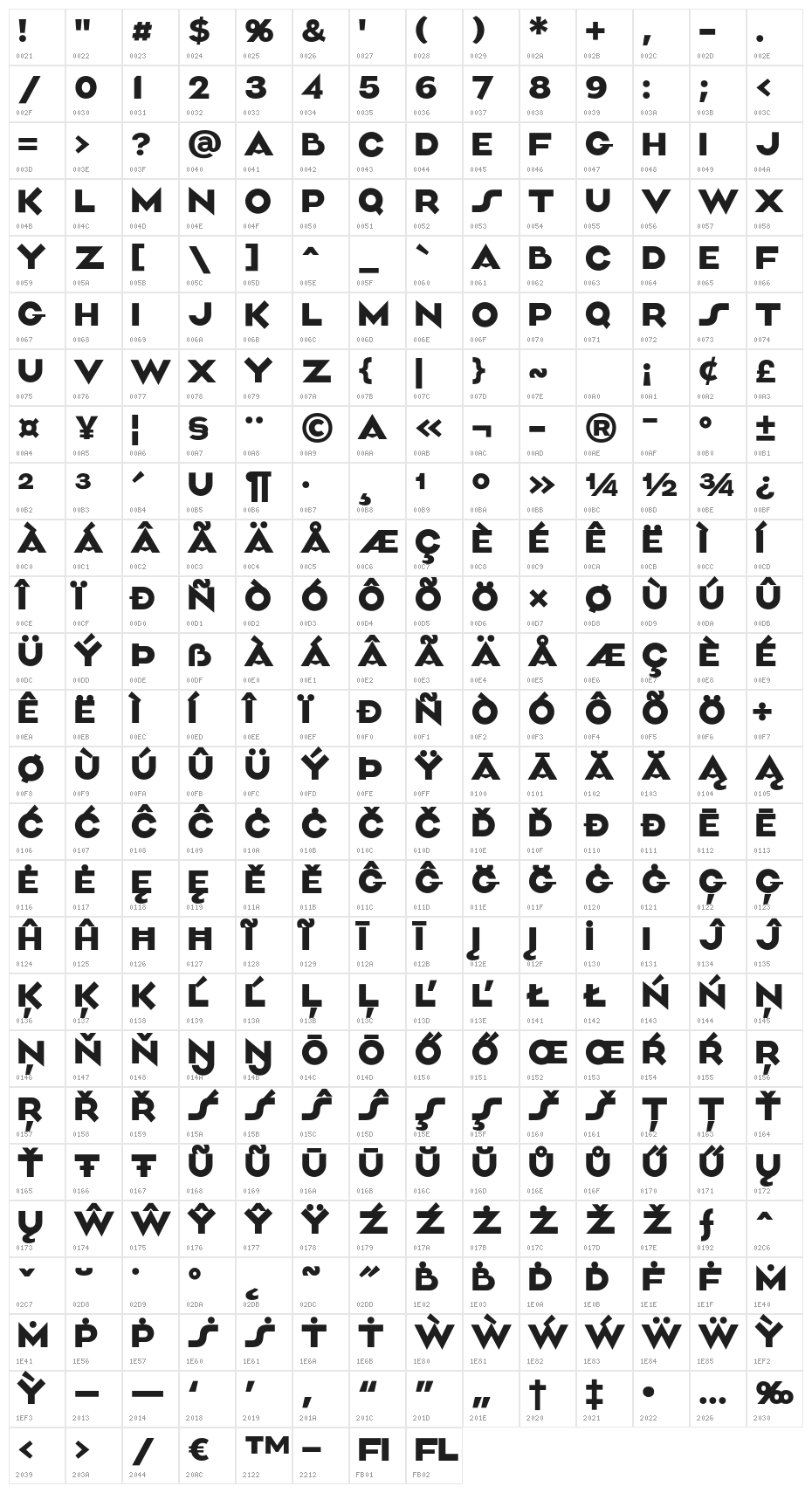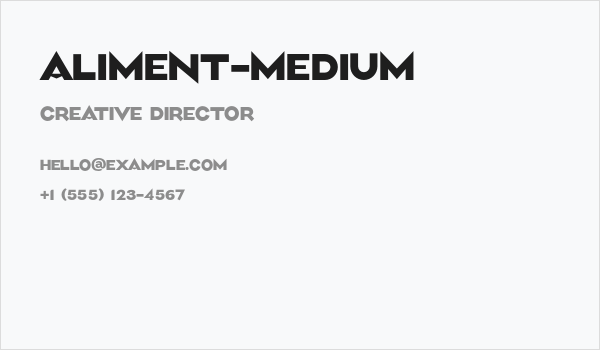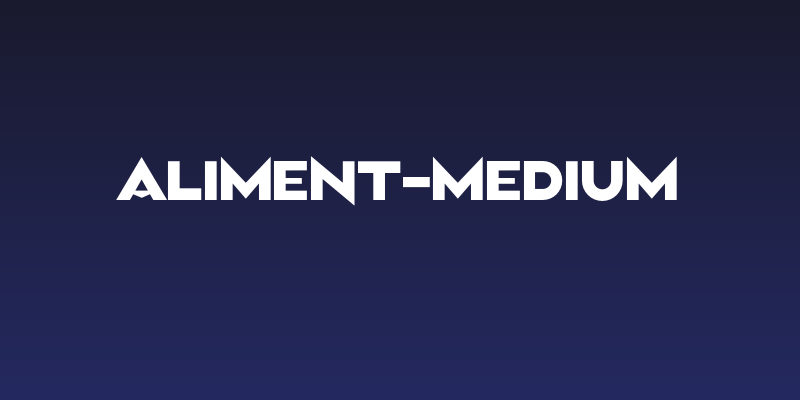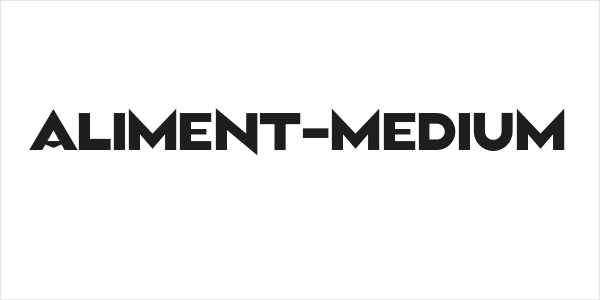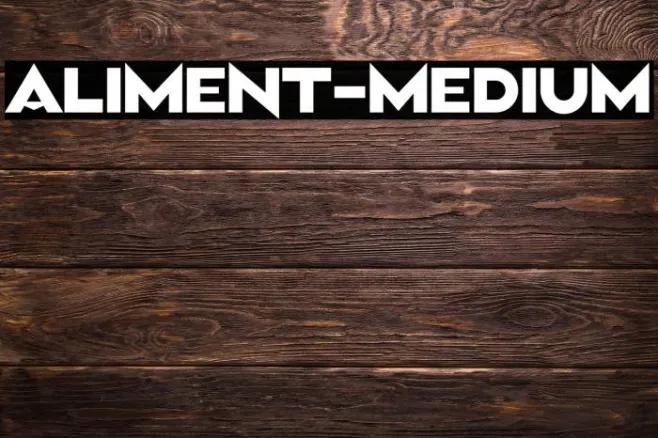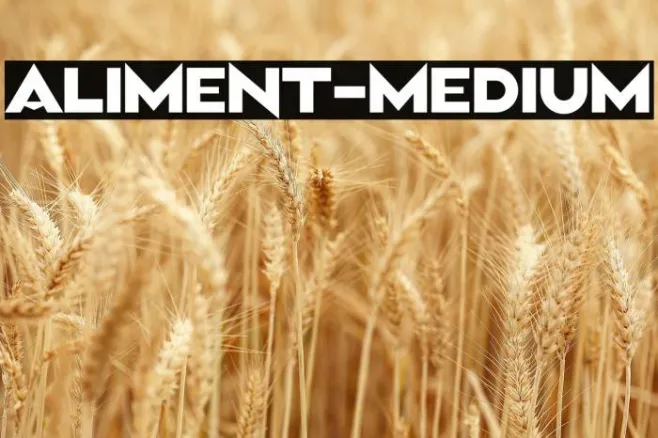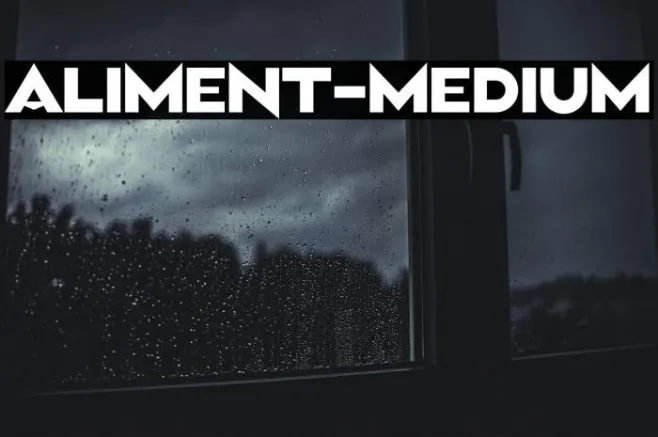
Aliment-Medium Font
Aliment-Medium Description
This font features a bold and geometric design with sharp angles and clean lines. The uppercase letters are particularly striking, with a modern and futuristic aesthetic. The characters are evenly spaced, providing a balanced and cohesive appearance. The numbers and special characters maintain the same boldness, ensuring consistency across all elements. The overall style is assertive and impactful, making it suitable for attention-grabbing designs.
| Proposed Projects | Ideal for branding, headlines, posters, and digital media where a strong visual impact is desired. |